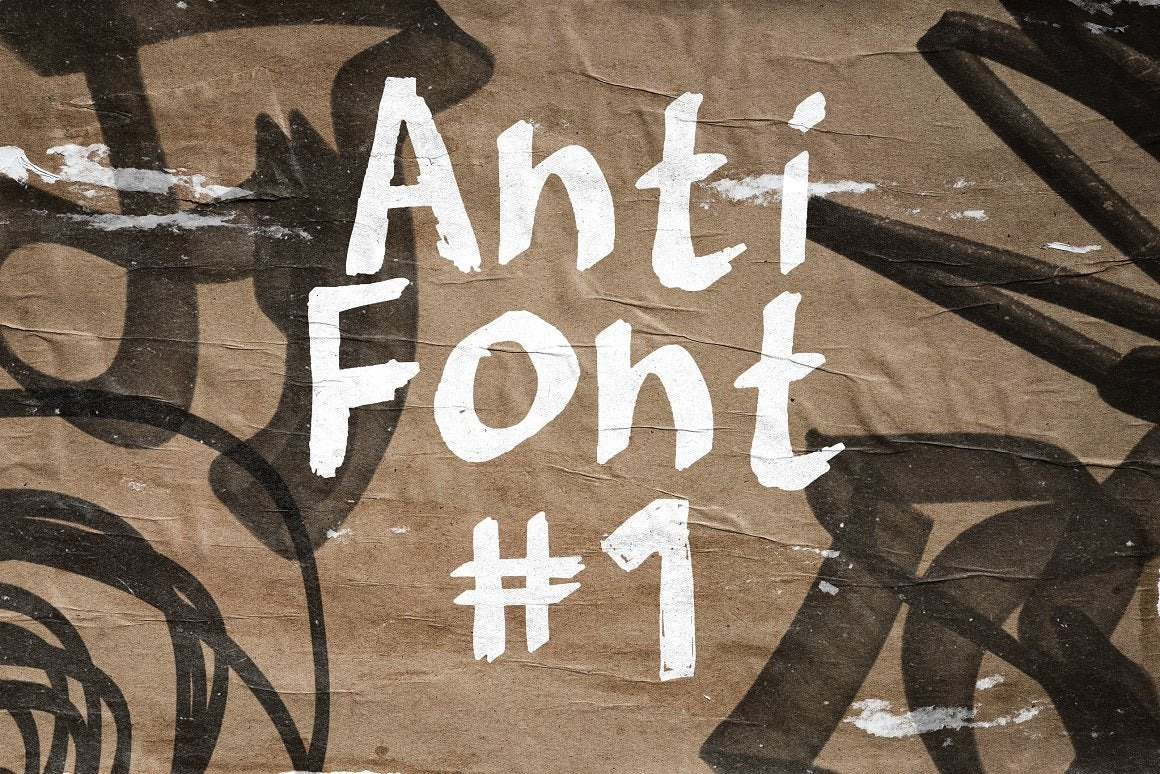
Anti-Font #1 Anti-Design Collection
Anti-Design Collection: Font #1
Anti-Font #1 is the first font of "Anti-Design" Pack. It represents the rebellion against orthodoxal good-looking designs, which are so easy to make nowadays that they have lost their soul and are no longer sincere. Experimental, ugly, non-conventional graphic design is the new trend in the industry - eye-catching, super bold, and truly unique.